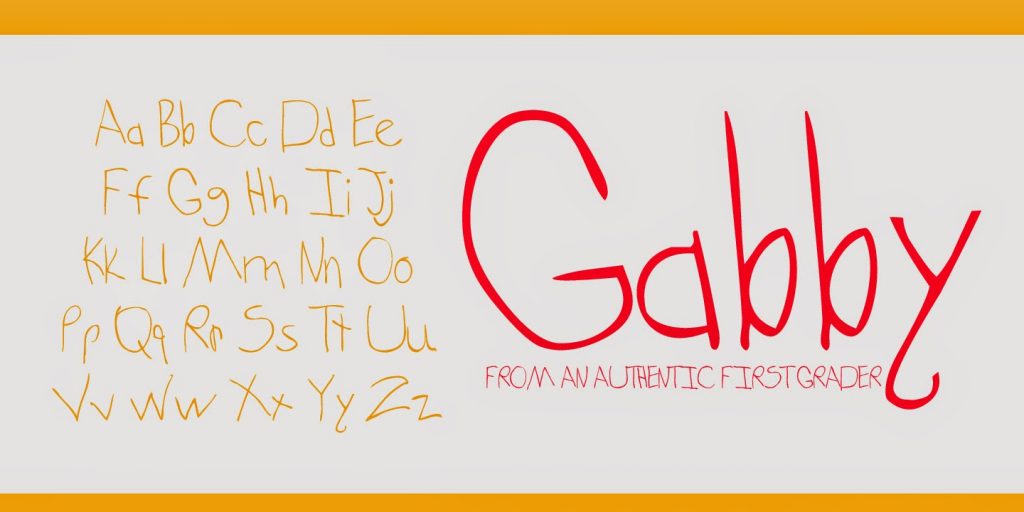
The name in the blog address, bellafonts, is there because I do fonts sometimes. It’s a hobby. And I just made a new font from the backpack of my child. I compiled all her papers from 1st grade, stole letters here and there, cleaned them up, and created Gabby, the font of an authentic first grader.
The font most people use when they want a handwritten font, or something that looks like a child wrote it, is comic sans. This man sums up the epic adventure of comic sans well…
Everyone loves to hate Comic Sans. The child-like handwriting font is so infamous, there is a movement to try to ban it. Mention its name to the common layman (aside from a preschool teacher), and you will likely get a chuckle, mention it to a trained designer, and you’ll get a look of disgust. From kadavy
I think the “professionals” mess up when they forget a font has two purposes.
1. To be a type face in a book or article (there are no copyrights whatsoever for use of a font this way)
2. In a design (i.e. book cover, and the fonts are very copywritten in this manner)
Comic Sans was designed to be something like a typeface used in a program, and it would have looked awful had they gone that route I’m sure, but novice designers found a good use for it in design when trying to portray something handwritten because of its imperfections.
Gabby is not a font like Arial or Helvetica where the point is to use it as a typeface in a book, something uniform and very geometric with perfection in every loop and hole. Nope. It’s meant to look like a first grader wrote it because a first grader did, and many times, in Graphic Design (not typefacing), you need something like that.
The problem with fonts like Comic Sans in that sense is it’s not imperfect enough to look handwritten. In this day and age, everyone has a font of their own handwriting out there. Ones I particularly like (which happen to be free)…
These are fonts that would look horrid in a book, like it would be a tough read. But they are perfect for the book cover. Gabby is a font like this. What I was aiming for at least.